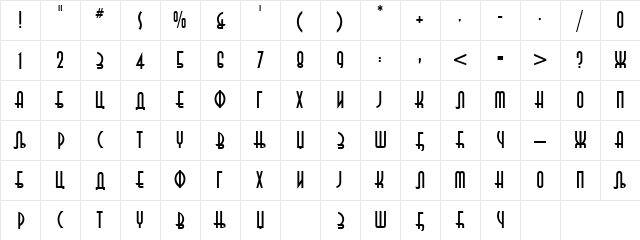
Complete C_Ann A glyph index. Displaying only characters natively supported by C_Ann A font.
C_Ann is a composed and adaptable typeface that performs quietly and consistently across a wide range of design contexts.